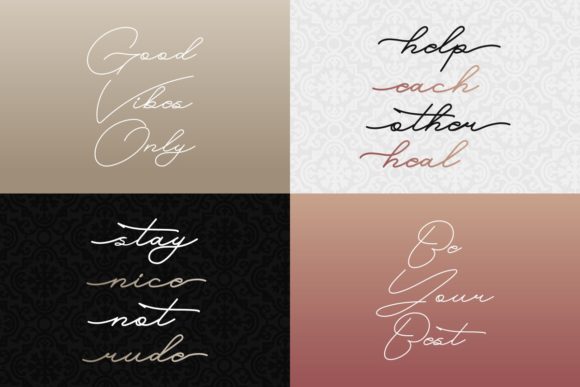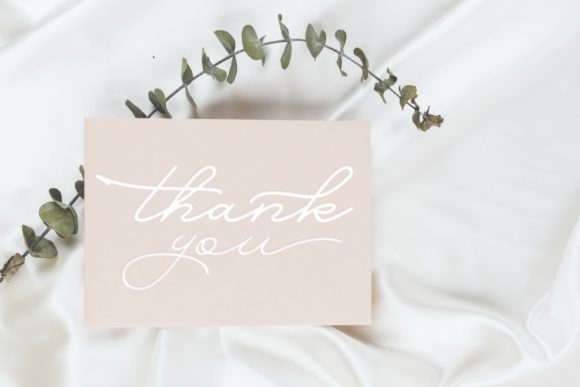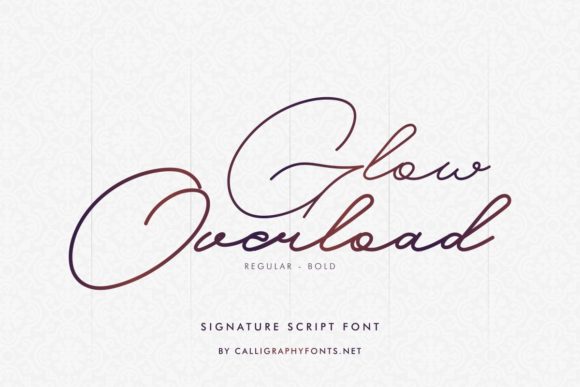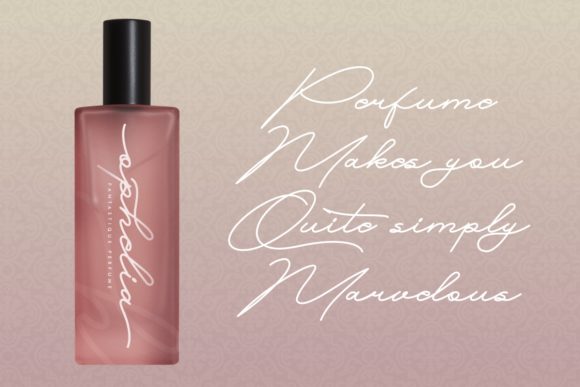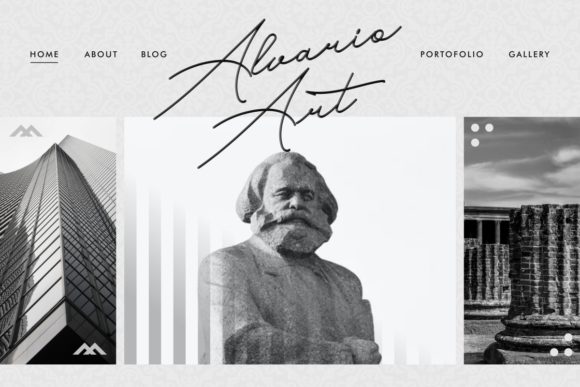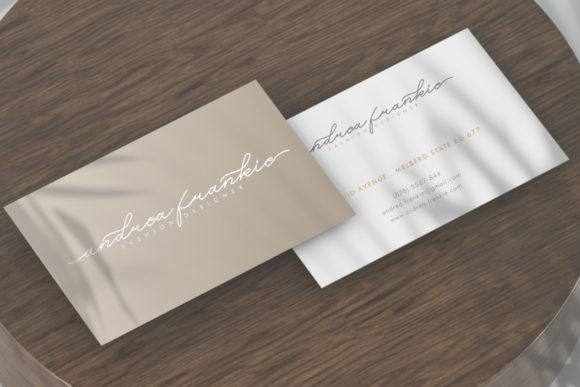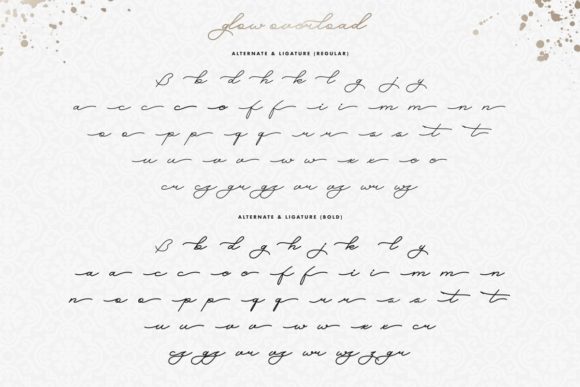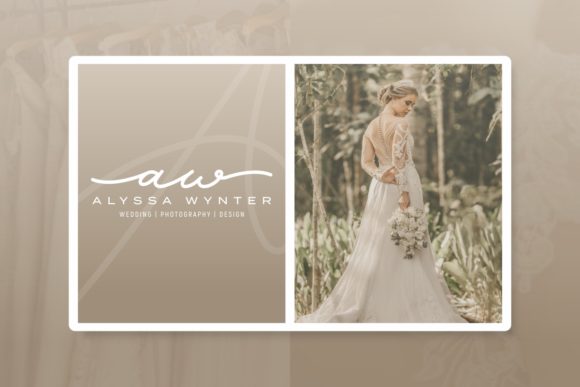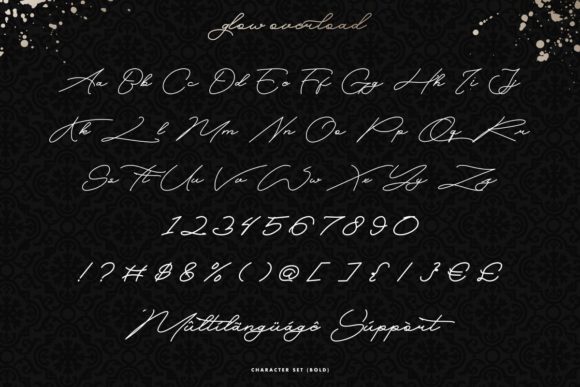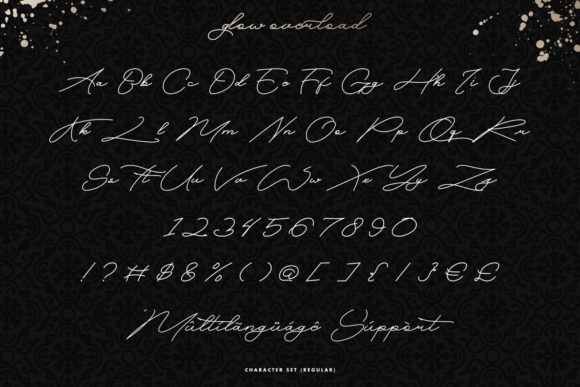
Glow Overload Font
About Glow Overload Font
Glow Overload is a thin and delicate handwritten font. Fall in love with its incredibly versatile style and use it to create gorgeous wedding invitations, beautiful stationary art, eye-catching social media posts, and much more!